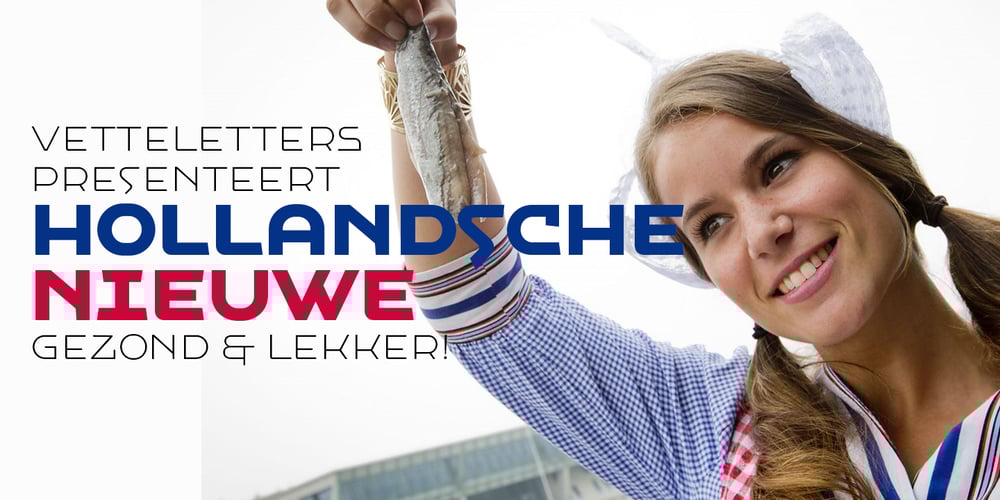
VLNL Hollandsche Nieuwe Font Family was designed by Donald Roos and published by VetteLetters. VLNL Hollandsche Nieuwe contains 2 styles and family package options. Raw herring is the Dutch sashimi. Every year at the beginning of the summer a new batch of freshly caught herring arrives at Holland’s quays. Fishing boats actually race each other to be the first boat bringing it home. The fresh herring is called ‘Hollandsche Nieuwe’ (Holland’s new). This typeface, designed by Donald Roos, is based on the typography of Dutch fish shops and stalls. Inspired by lettering from the 30’s and 40’s, infused with some ‘techno’ flavour, Hollandsche Nieuwe is the brand new fresh fishy type flavor on your computer! It is traditionally eaten with sliced onions and pickles. Simply pick up the fish by the tail, open your mouth and take a bite! Enjoy!